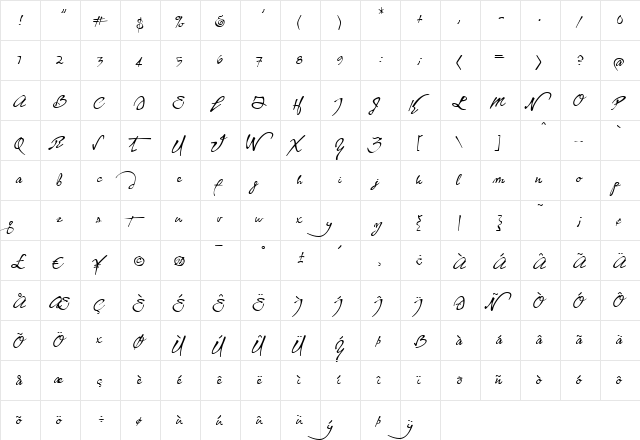
Yankee Ghosts BB Regular
Design Context for Yankee Ghosts BB Typeface
Yankee Ghosts BB is a composed and adaptable typeface that performs quietly and consistently across a wide range of design contexts.